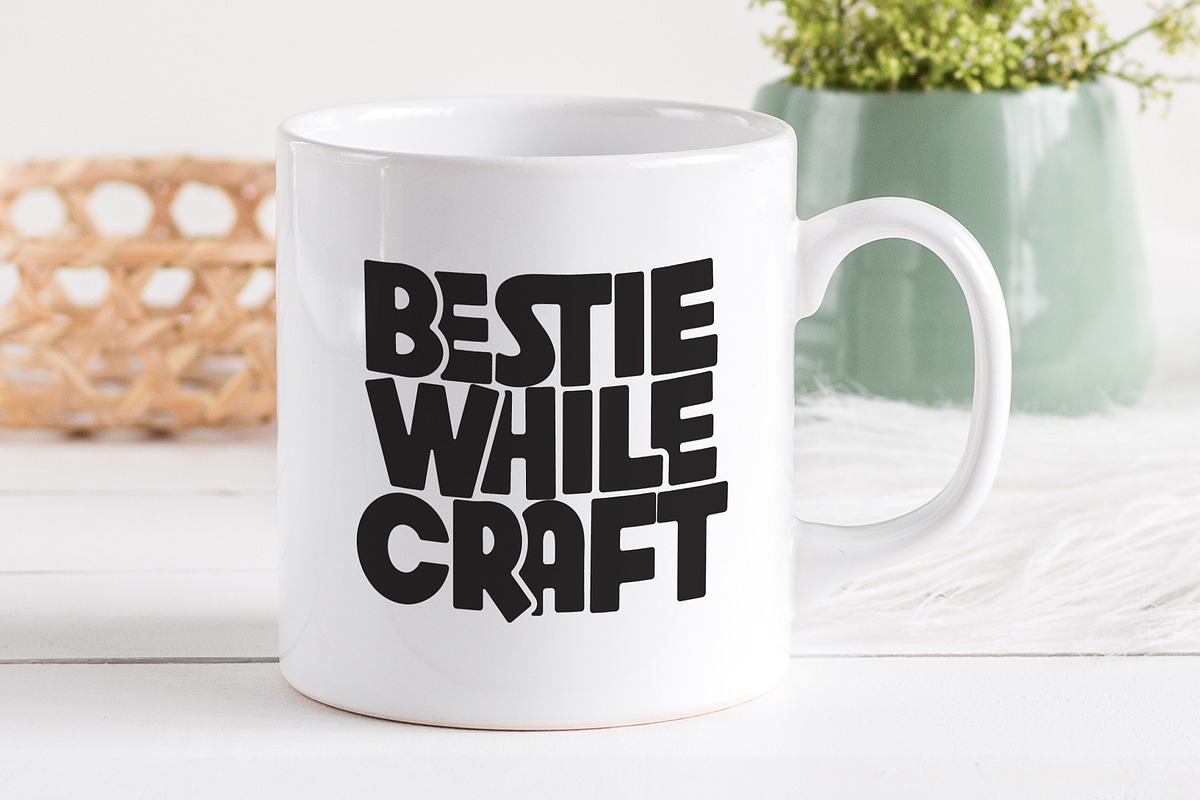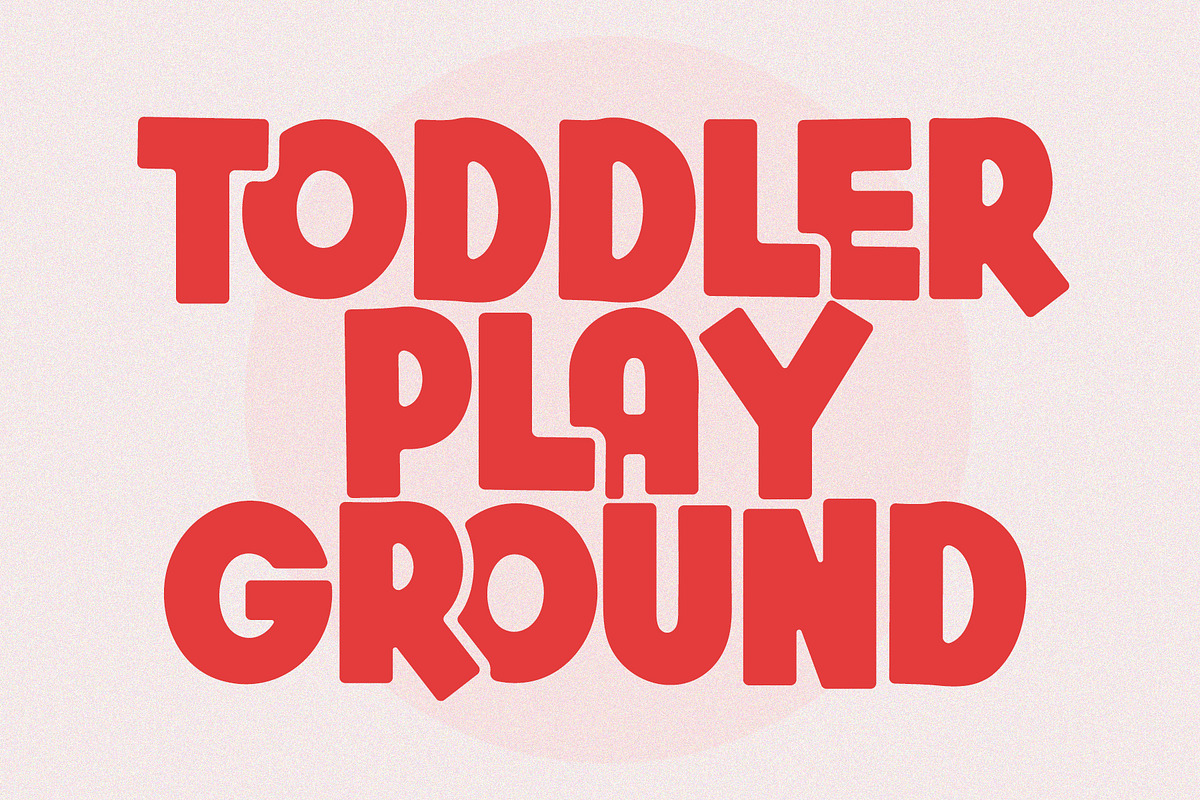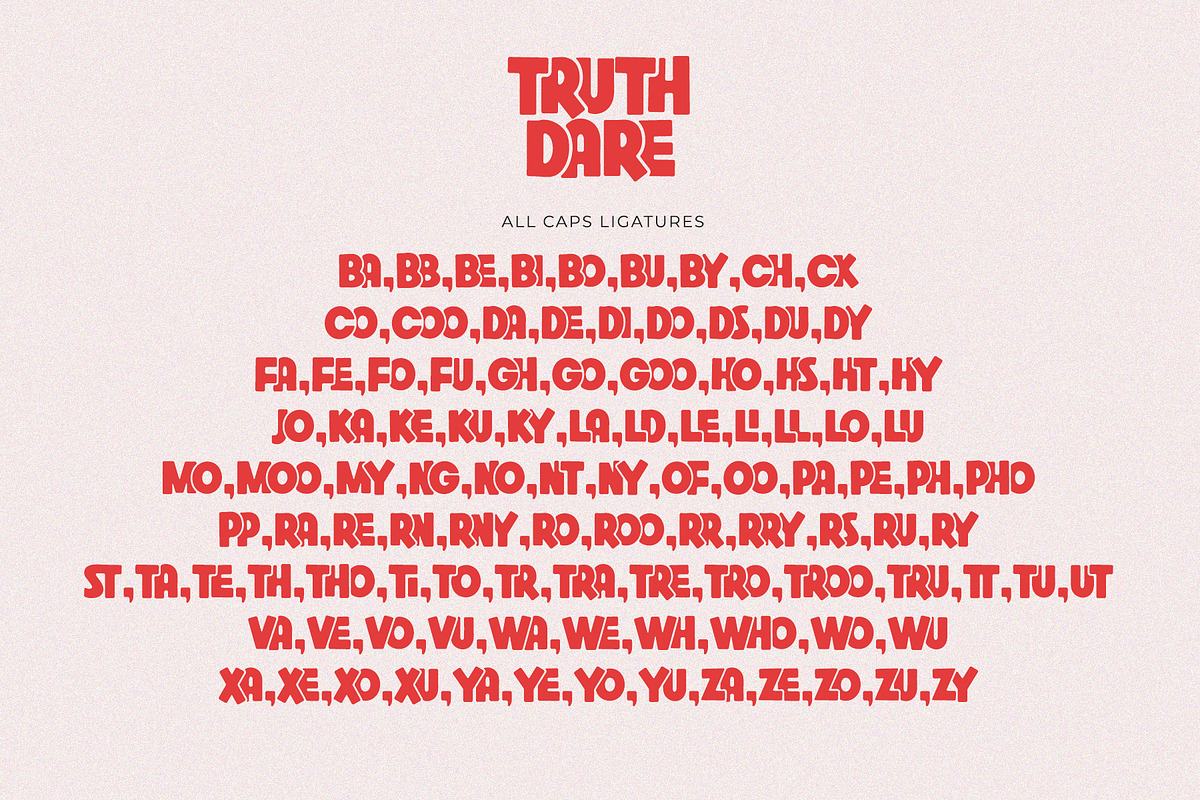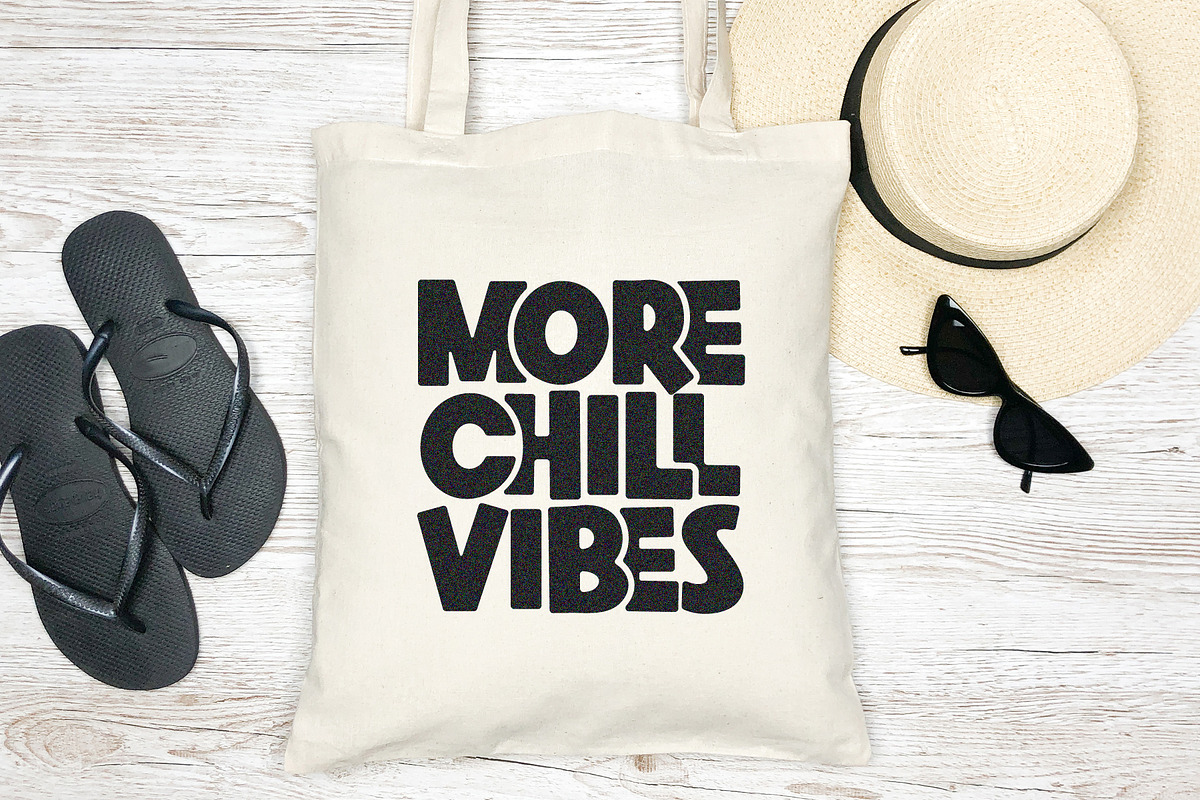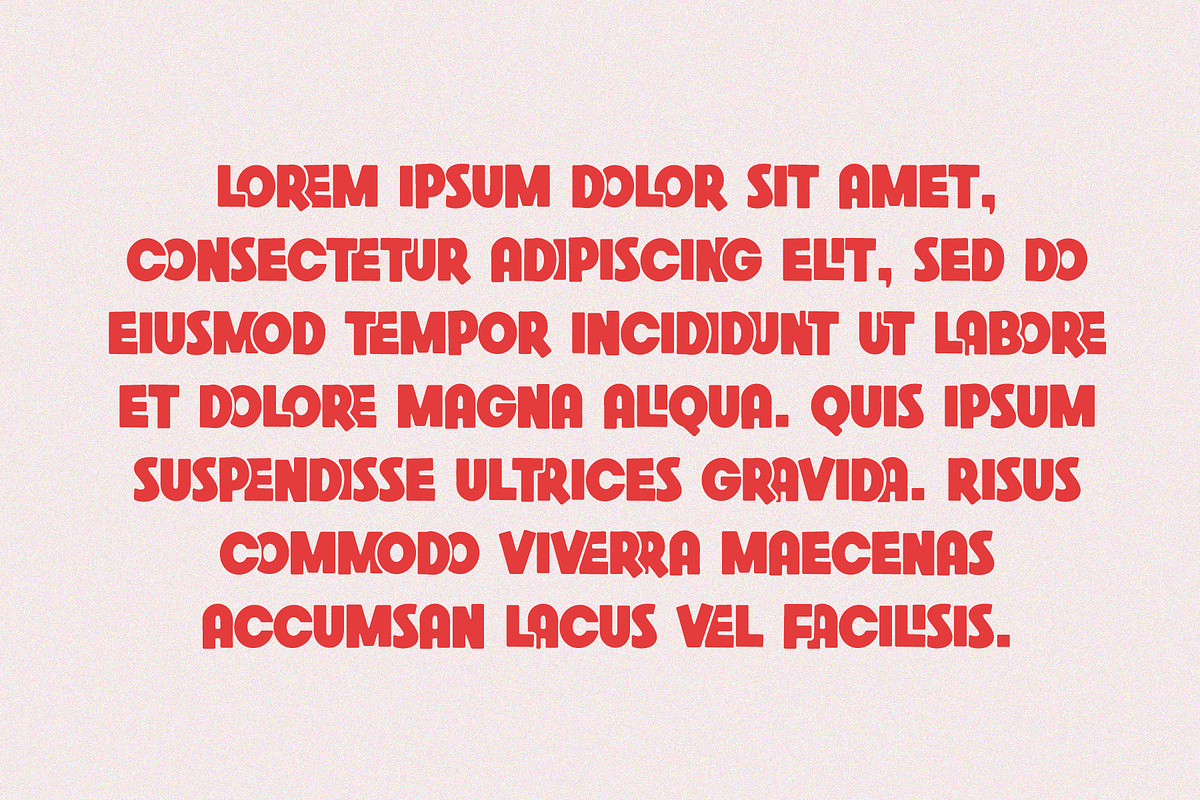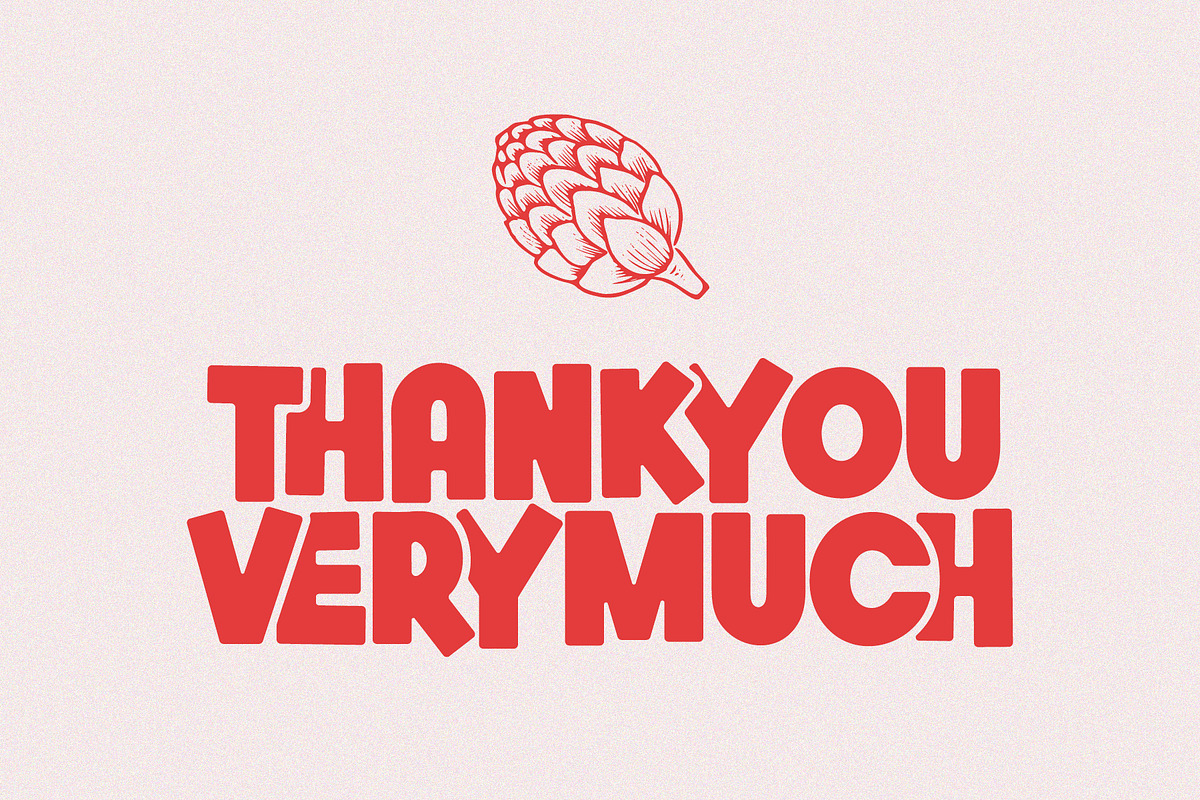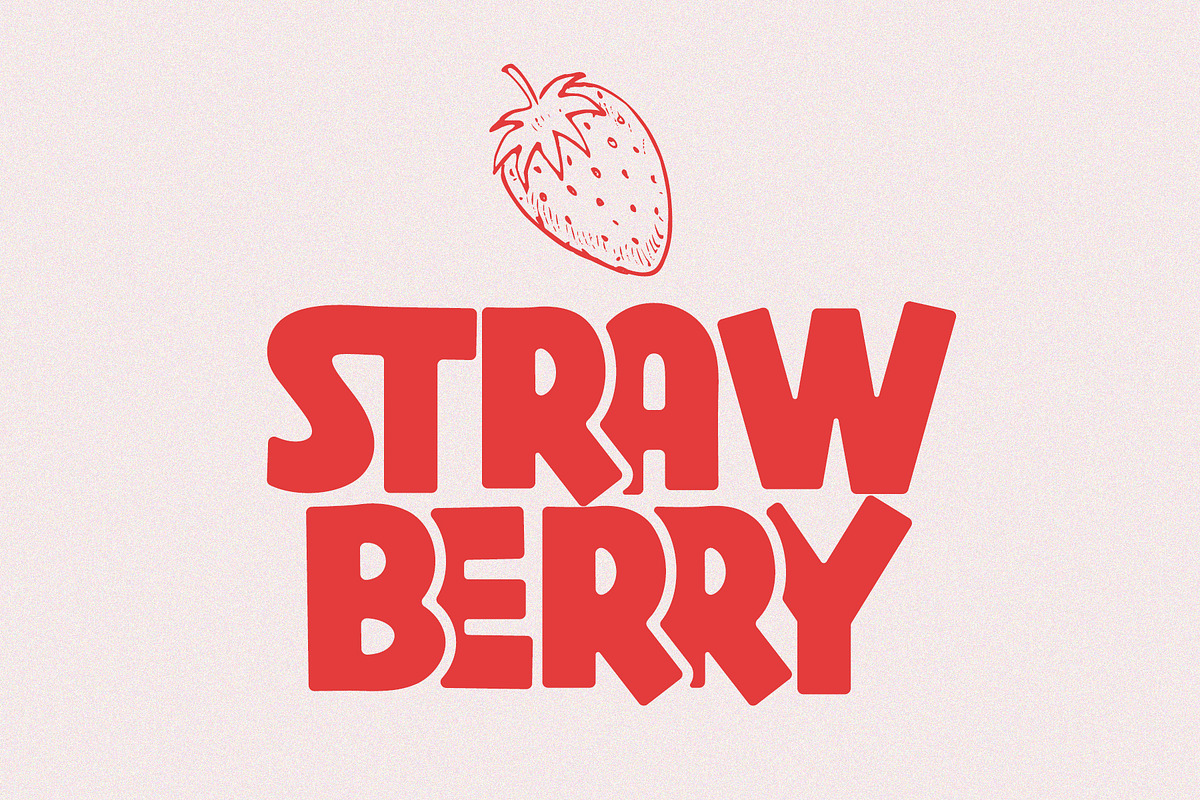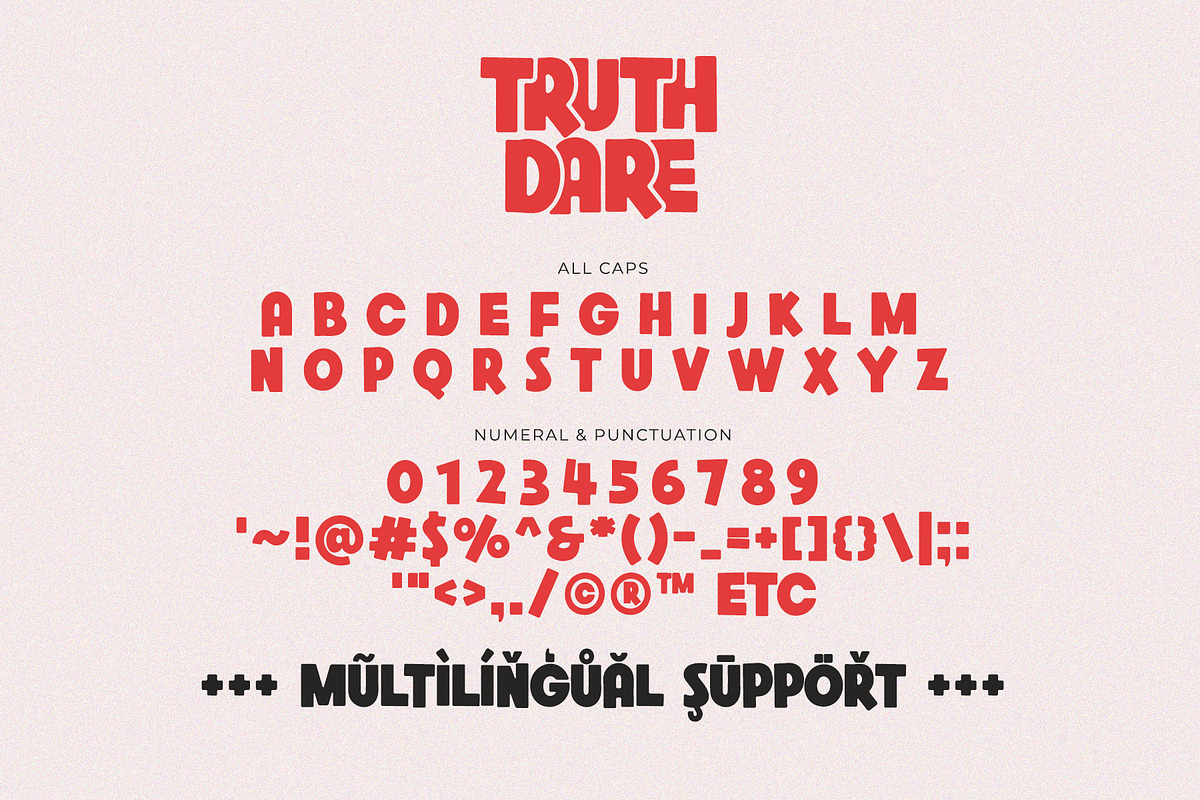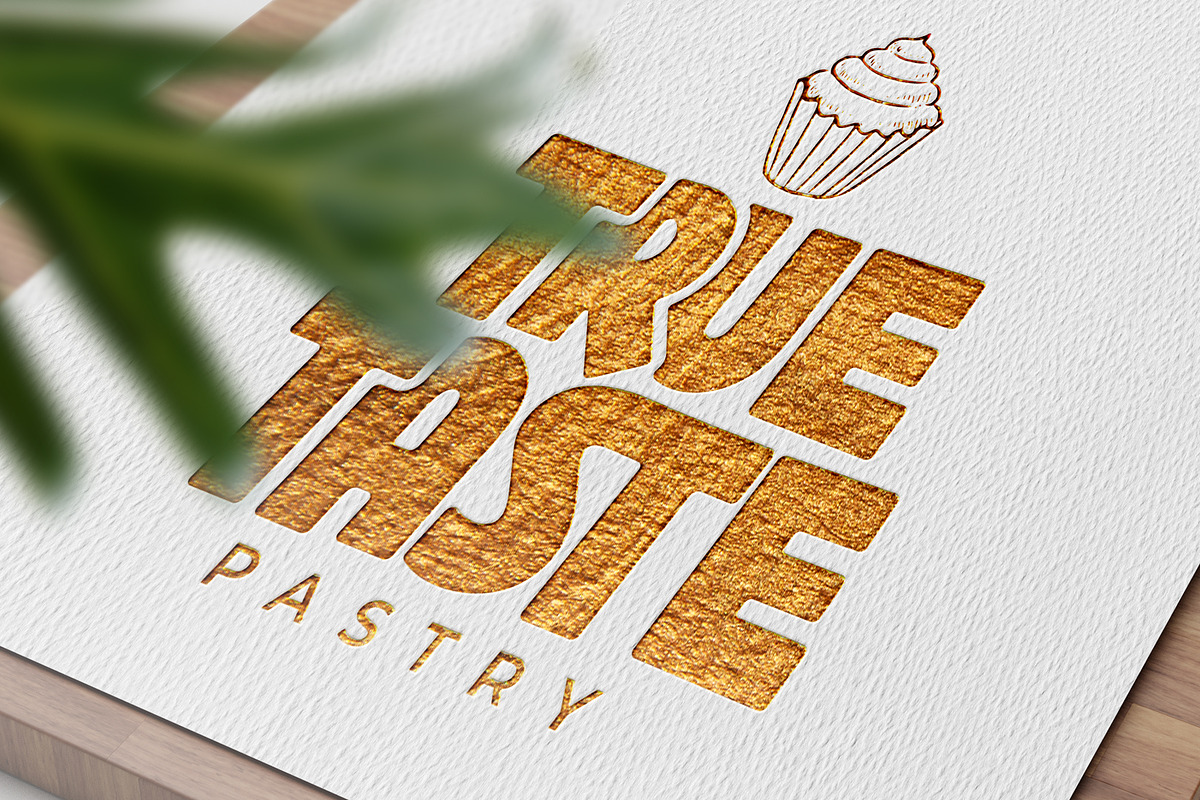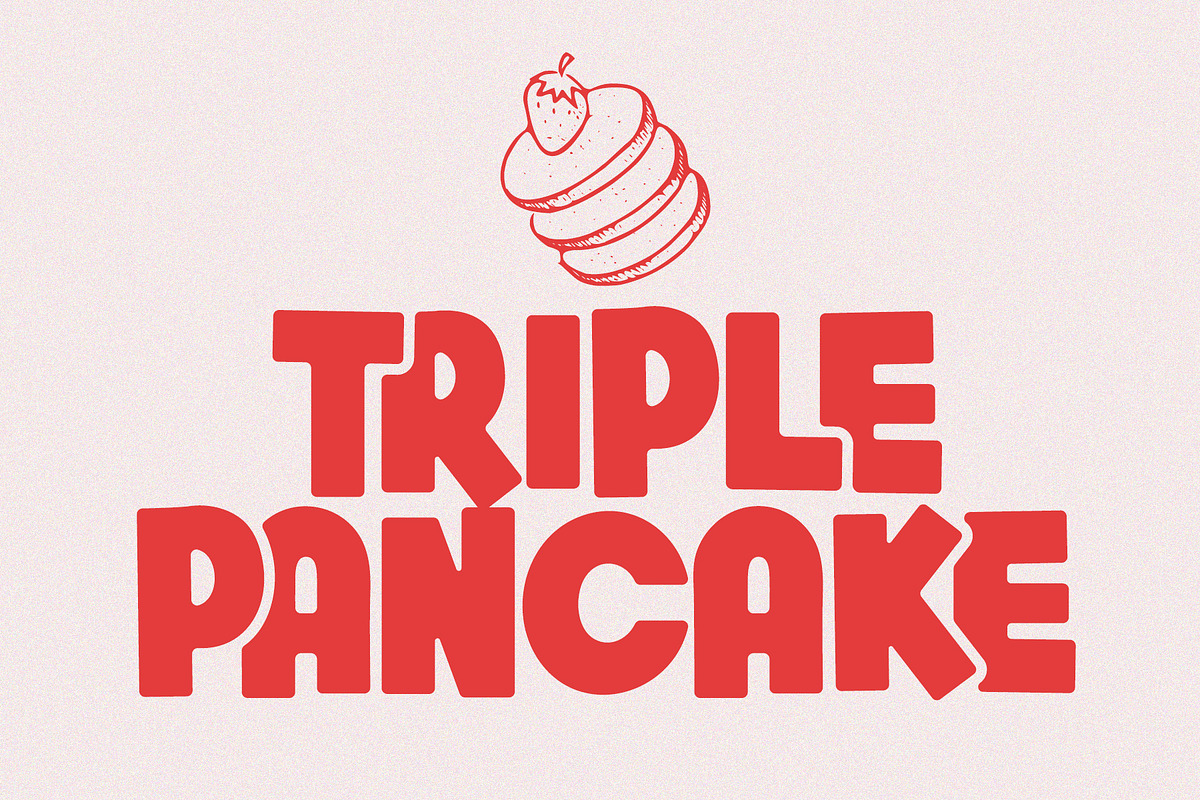
Truth Dare - Bold All Caps Font
Truth Dare is bold all caps display font with cute and playful touch. Created with rounded corner, it has lots of ligatures for more options in designing.
Truth Dare is perfect font for wide ranges of cute-theme design, such as crafting, t-shirt, display, sticker, quotes, tumbler, sublimation, and many more.
- All Caps with Ligatures
- Most Multilingual Accent